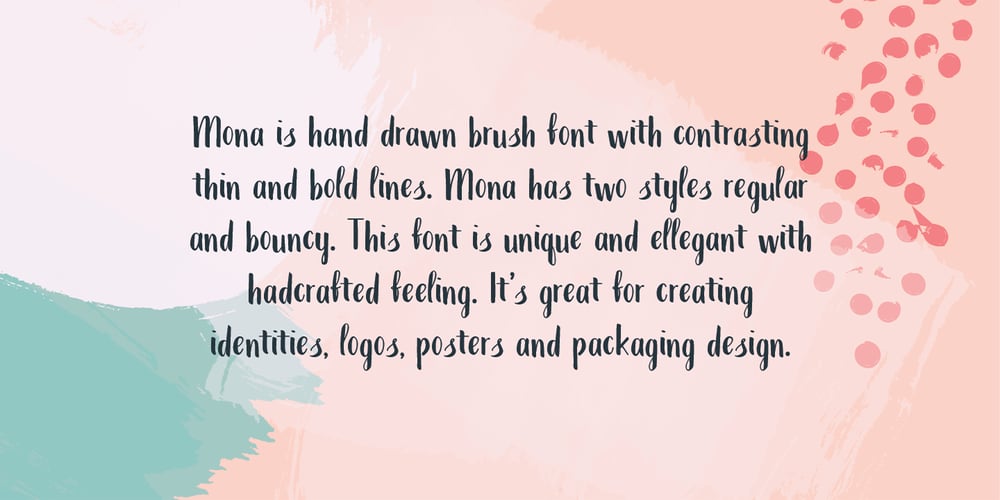
Mona Font Family was designed by Evita Vilaka and published by WildOnes. Mona contains 2 styles and family package options. Mona hand lettered font is a hand drawn brush font. It has contrasting thin and bold lines. This is a decorative font, so it works best for short descriptions, logos, identities, packaging design. Also looks great on diferent invitations and posters. The typeface has two styles – regular and bouncy. Boucny is ideal for designs where you need just a little bit more playfulness.